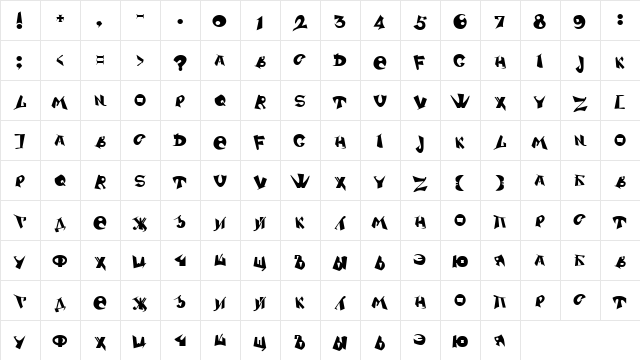
DS Sharper Regular
| Foundry | D-Studio |
| Designer | Dubina Nikolay |
Design Context for DS Sharper Typeface
DS Sharper is a composed and adaptable typeface that performs quietly and consistently across a wide range of design contexts.